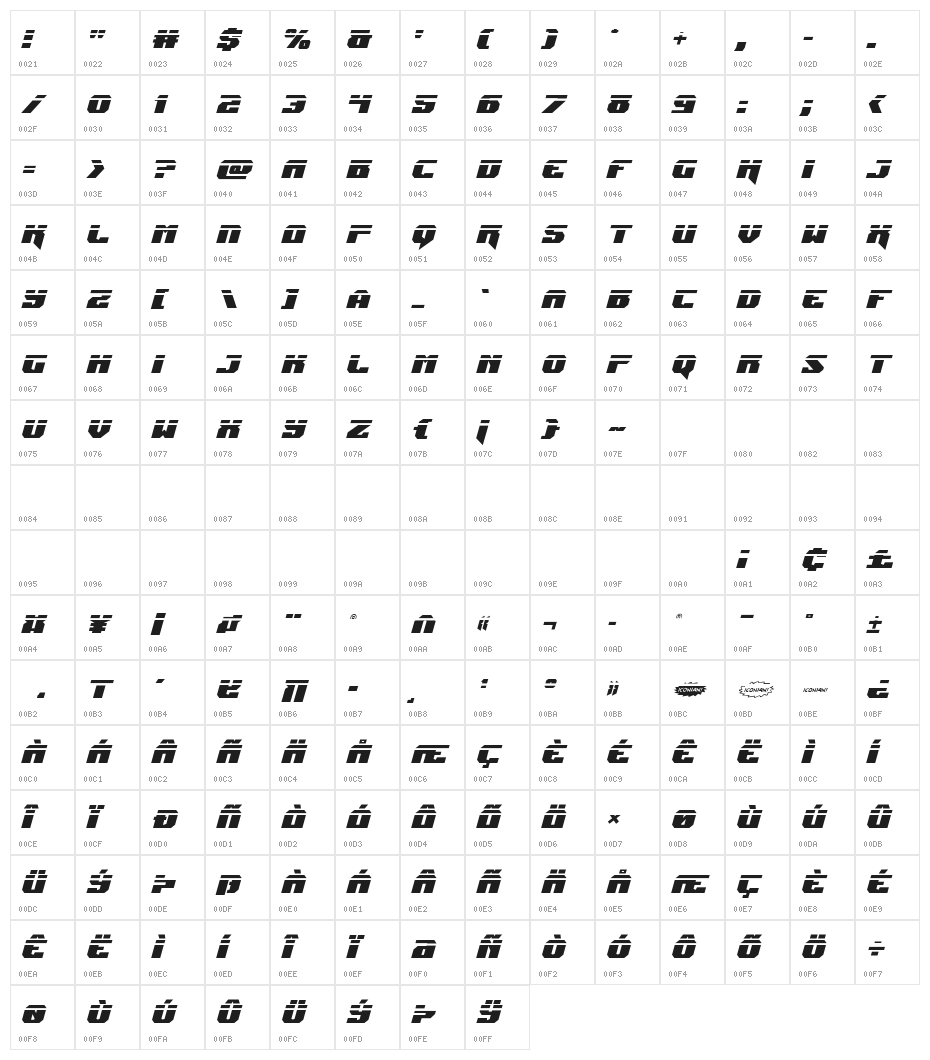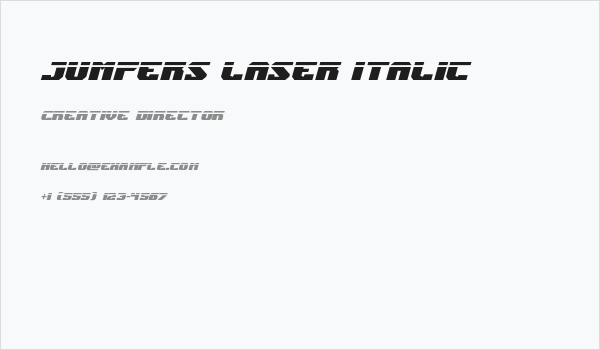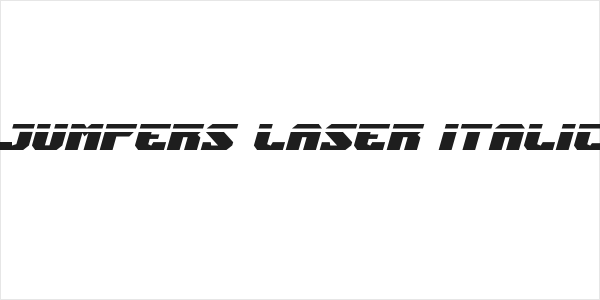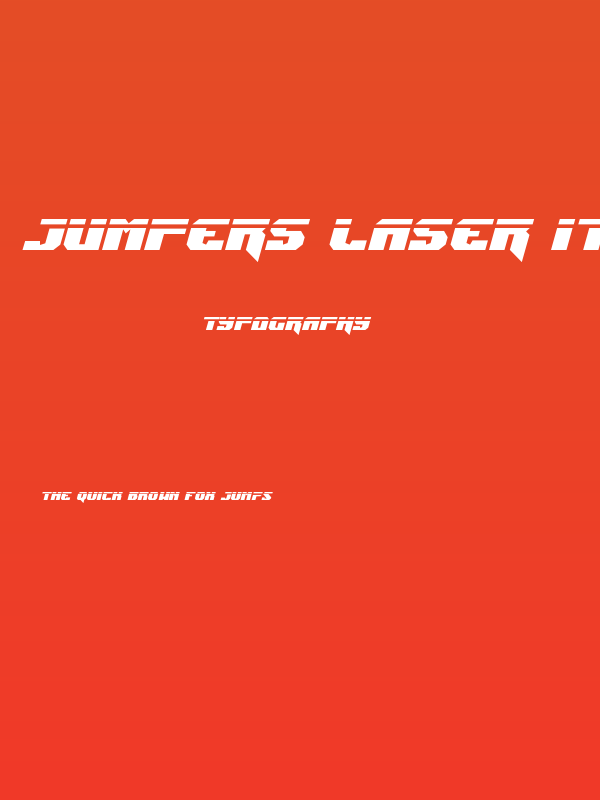
Jumpers Laser Italic Font
Jumpers Laser Italic Description
This font features a bold, angular design with sharp edges and a futuristic aesthetic. The characters are heavily stylized, with a slanted, italicized form that gives a sense of motion and dynamism. The uppercase and lowercase letters maintain a consistent geometric structure, while the numbers and special characters follow the same angular theme. The font's unique style makes it stand out, with each character having a distinct, edgy appearance. The overall design is reminiscent of sci-fi and tech-inspired themes, making it ideal for projects that require a modern and bold look.
| Overall Style | Futuristic, Tech-inspired |
| Proposed Projects | Ideal for sci-fi themed projects, tech branding, video game titles, and futuristic posters. |